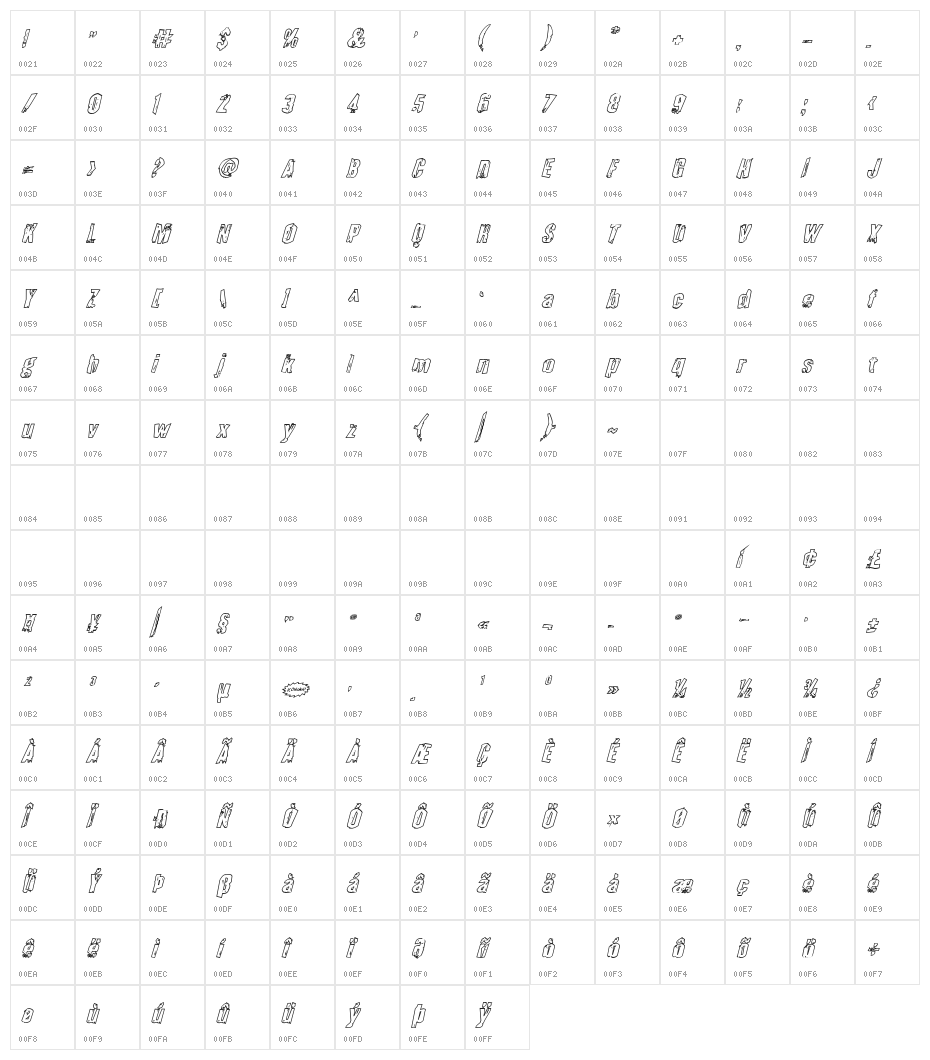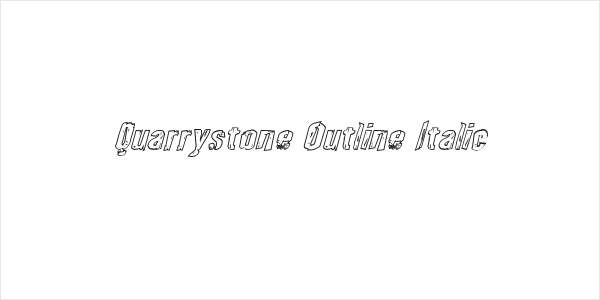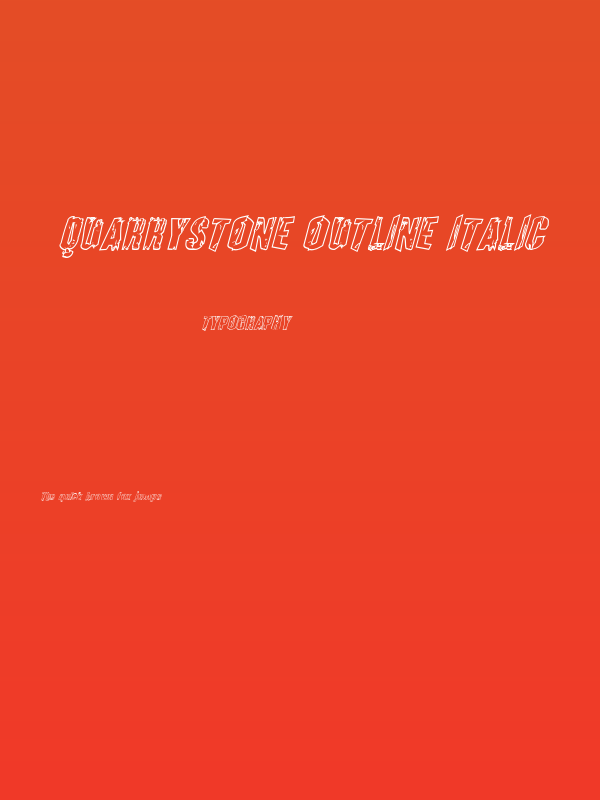
Quarrystone Outline Italic Font
Quarrystone Outline Italic Description
This font features a bold, outlined style with a distressed texture that gives it a rugged, weathered appearance. The italic slant adds a dynamic and energetic feel, making it stand out with its unique character. Each letter is crafted with an outline that is irregular and rough, creating a sense of movement and unpredictability. The uppercase and lowercase letters maintain a consistent style, while the numbers and special characters complement the overall aesthetic. This font is ideal for projects that require a bold statement with a touch of grunge or vintage flair.
| Proposed Projects | Ideal for posters, album covers, branding for edgy or vintage-themed products, and any design requiring a bold, standout typeface. |